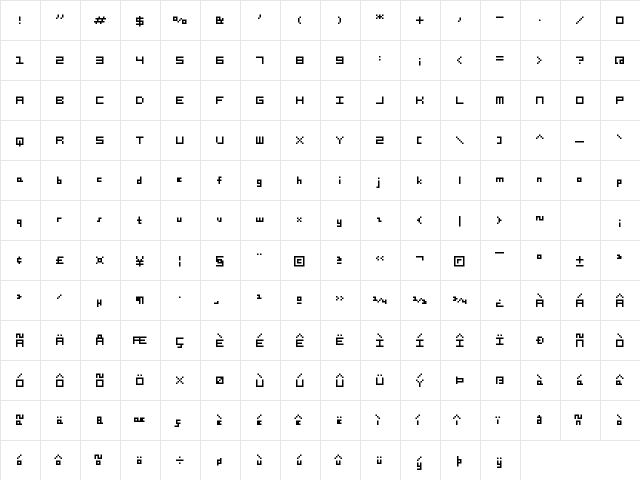
Heytext Medium
Design Context for Heytext Typeface
Heytext takes a measured approach to typography — its balanced proportions and neutral character make it a reliable workhorse for both digital and print work.